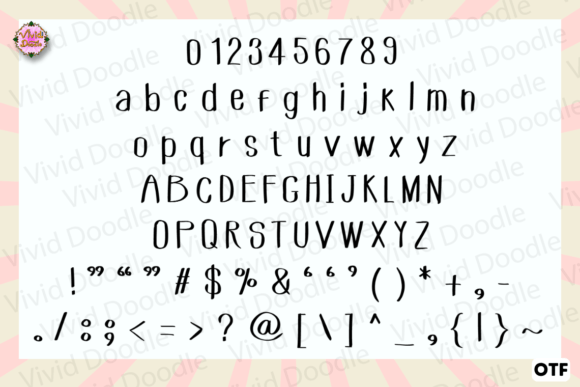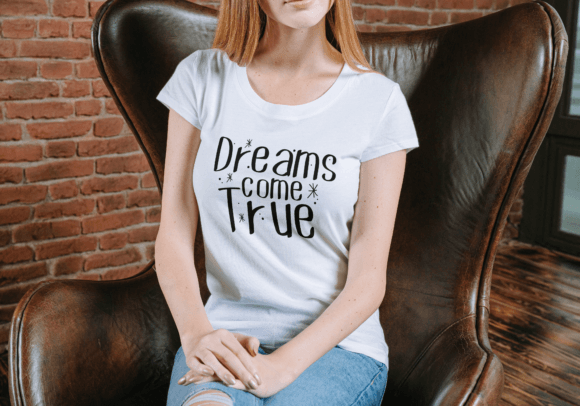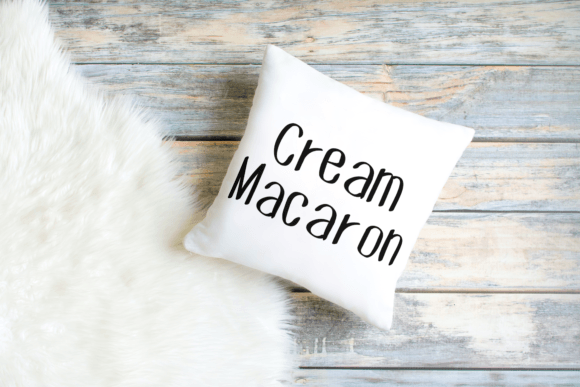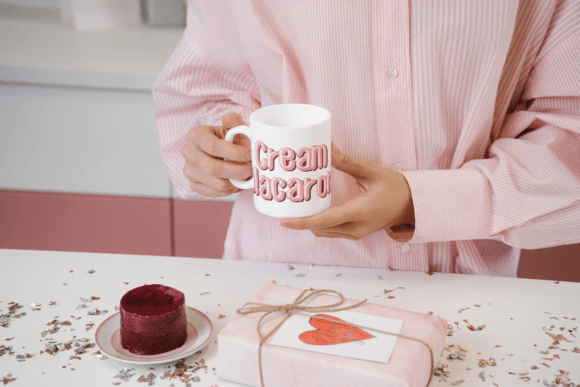
Cream Macaron Font: A Festive and Versatile Addition to Your Design Arsenal
Are you looking to add a touch of festive cheer to your designs? Look no further than the Cream Macaron Font, a unique and enchanting hand-lettered font that’s perfect for the holiday season and beyond. In this article, we’ll dive into the world of Cream Macaron, exploring its features, benefits, and uses, and show you how to make the most of this adaptable and exclusive font.
The Story Behind Cream Macaron Font
Cream Macaron Font is a newly crafted font, thoughtfully designed to capture the warm joy and merriment of the festive season. With its delicate and whimsical design, this font is sure to transport your audience to a world of holiday magic. The font’s creator has poured their heart and soul into crafting a truly unique and special font that’s sure to make your designs stand out.
Key Features of Cream Macaron Font
So, what makes Cream Macaron Font so special? Here are just a few of its key features:
- Hand-lettered design: Each letter has been carefully crafted by hand, giving the font a personal and unique touch.
- Festive and cheerful: The font’s design is infused with the spirit of the holiday season, making it perfect for Christmas, Hanukkah, or any other winter celebration.
- Versatile: While Cream Macaron Font is perfect for holiday designs, it’s also versatile enough to be used for a wide range of projects, from wedding invitations to branding and packaging.
- Enchanting and exclusive: This font is a one-of-a-kind creation, ensuring that your designs will stand out from the crowd.
Benefits of Using Cream Macaron Font
So, why should you choose Cream Macaron Font for your designs? Here are just a few benefits:
- Add a touch of festive cheer: With Cream Macaron Font, you can add a dash of holiday magic to your designs, making them perfect for the season.
- Stand out from the crowd: The font’s unique design ensures that your creations will be noticed and remembered.
- Enhance your brand: Whether you’re a designer, crafty, or small business owner, Cream Macaron Font can help elevate your brand and make it more festive and engaging.
- Easily adaptable: The font is easy to use and can be adapted to suit a wide range of design styles and projects.
Using Cream Macaron Font in Your Designs
So, how can you use Cream Macaron Font in your designs? Here are a few ideas to get you started:
- Holiday cards and invitations: Add a touch of festive cheer to your holiday cards and invitations with Cream Macaron Font.
- Christmas and winter-themed designs: From festive banners to winter wonderland scenes, Cream Macaron Font is perfect for any Christmas or winter-themed design.
- Wedding and event invitations: The font’s elegant and whimsical design makes it perfect for wedding invitations, baby showers, and other special events.
- Branding and packaging: Use Cream Macaron Font to add a touch of personality and whimsy to your branding and packaging.
Tips and Tricks for Getting the Most Out of Cream Macaron Font
Here are a few tips and tricks to help you get the most out of Cream Macaron Font:
- Experiment with colors: Try pairing Cream Macaron Font with different colors and textures to create a unique and eye-catching design.
- Mix and match with other fonts: Combine Cream Macaron Font with other fonts to create a truly unique and personalized design.
- Use it sparingly: While Cream Macaron Font is perfect for adding a touch of festive cheer, use it sparingly to avoid overwhelming your design.
| Font Name | Cream Macaron Font |
| Author | VividDoodle |
In conclusion, Cream Macaron Font is a unique and enchanting addition to any design arsenal. With its festive and cheerful design, versatility, and exclusive nature, this font is sure to make your designs stand out. Whether you’re a designer, crafter, or small business owner, Cream Macaron Font is the perfect way to add a touch of holiday magic to your creations. So why wait? Dive into the holiday spirit and get ready to enhance your projects with this adaptable and exclusive font.